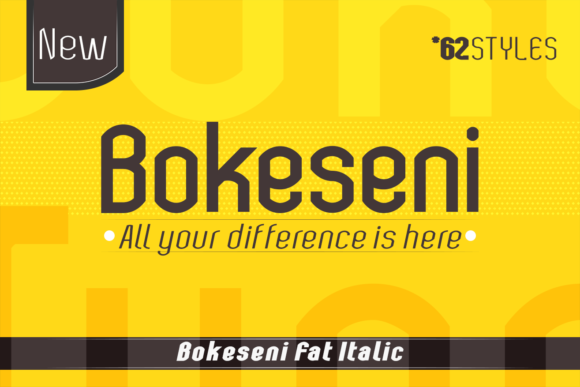
The Perfect Font for the Modern Designer
As a designer, you’ve probably experienced that moment when everything falls into place – the perfect balance of colors, the ideal typography, and the overall aesthetic that screams ‘wow.’ For me, that moment was when I first laid eyes on the Bokeseni Fat Font. Its sleek, modern design immediately caught my attention, and I knew I had to learn more about it.
Bokeseni Fat Font is a sans serif typeface that exudes a futuristic feel, perfect for designers looking to add a touch of modernity to their projects. With its neat and balanced arrangement of letters, this font is sure to elevate any design, whether it’s a formal corporate brochure or a non-formal social media post. As a valuable asset in any designer’s toolkit, Bokeseni Fat Font is a game-changer for those looking to take their designs to the next level.
Bokeseni Fat Font Key Features
- Unique Characteristics: Bokeseni Fat Font features a unique, bold, and playful design with thick lines and rounded edges, making it ideal for display and headline use.
- Font Style: Bokeseni Fat Font comes in a single style, but it can be easily customized and styled using various OpenType features, such as ligatures, swashes, and ornaments.
Bokeseni Fat Font Review
I’ve had the chance to work with Bokeseni Fat Font, and I must say it’s an interesting choice. Here are my thoughts:
- Unique aesthetic: The Bokeseni Fat Font has a distinctive, bold look that can add a touch of personality to designs.
- High legibility: Despite its bold appearance, the font is surprisingly easy to read, even at smaller sizes.
- Wide range of applications: From headlines to body text, Bokeseni Fat Font can be used in a variety of contexts.
- Limited font sizes: The font’s boldness can make it difficult to use at very small or very large sizes.
- Lack of versatility: While it’s great for bold, eye-catching headlines, Bokeseni Fat Font may not be the best choice for more subtle or nuanced text.
- Distraction: The font’s unique appearance can be distracting if used excessively or in the wrong context.
Overall, I think Bokeseni Fat Font is a solid choice for designers looking to add some flair to their work. However, it’s essential to use it thoughtfully and in the right context to avoid overwhelming the viewer.
Getting the Most Out of Bokeseni Fat Font
For best results, use Bokeseni Fat Font in bold or italic styles to add emphasis.
Combine with other fonts to create a unique and eye-catching design.
Bokeseni Fat Font is ideal for:
Headlines and titles
Emphasis and highlighting
Branding and logos
Infographics and visualizations
Alternatives to Bokeseni Fat Font
What is the recommended font size for using Bokeseni Fat Font?
The recommended font size for Bokeseni Fat Font is between 12pt and 24pt. However, this may vary depending on the specific design project and the desired visual impact. Experiment with different font sizes to find the optimal look for your design.